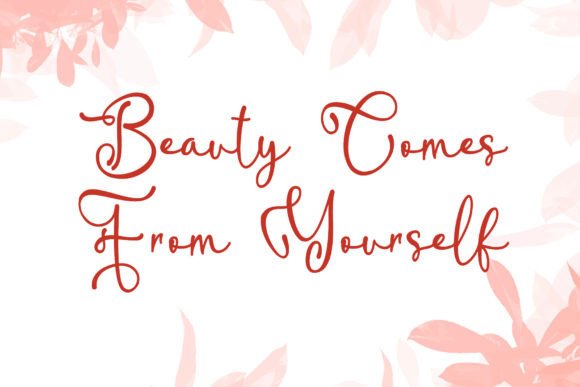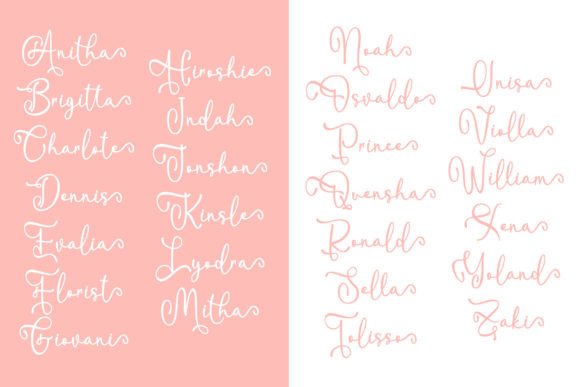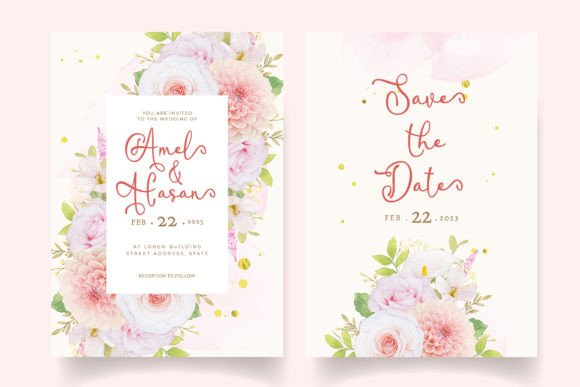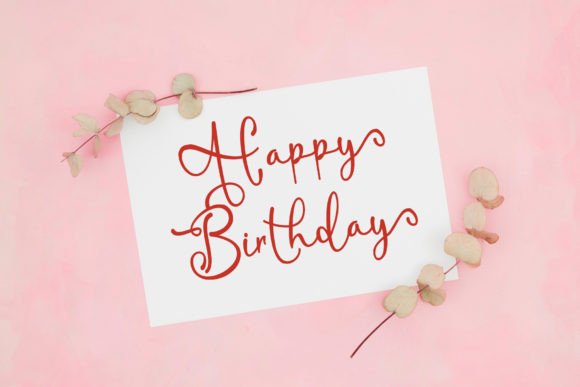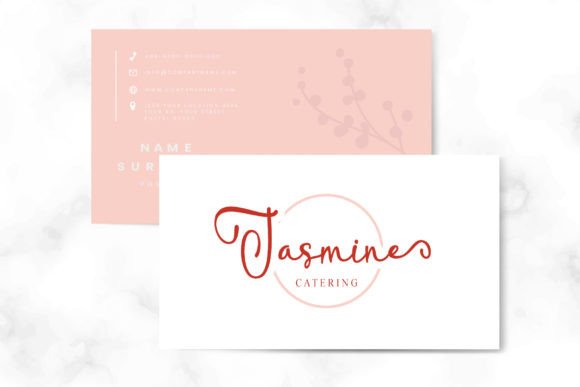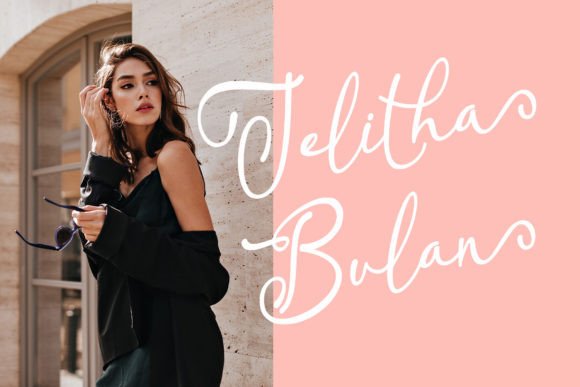
Introduction to Juwitha Font Font
Fonts play a crucial role in design, and the Juwitha Font font is a typeface that brings both character and versatility to any project. Whether you’re working on a branding project, a website, or a print design, the Juwitha Font font offers a unique style that can elevate your work.
Juwitha is a lovely handwitten font featuring charming, playful characters that seem to dance along the baseline.
It will add a luxury spark to any design project that you wish to create This font is PUA encoded which means you can access all of the glyphs and swashes with ease.
Key Features of Juwitha Font Font
Why Choose Juwitha Font Font?
The Juwitha Font font is more than just a typeface – it’s a design tool that helps you communicate your message with style and clarity. Its unique character set and versatile design make it suitable for a wide range of applications, from elegant invitations to bold headlines.
With its carefully crafted letterforms and balanced proportions, the Juwitha Font font ensures readability and visual appeal across all mediums.
What makes Juwitha Font font special?
The Juwitha Font font stands out with its unique design, exceptional readability, and versatility across various design applications.